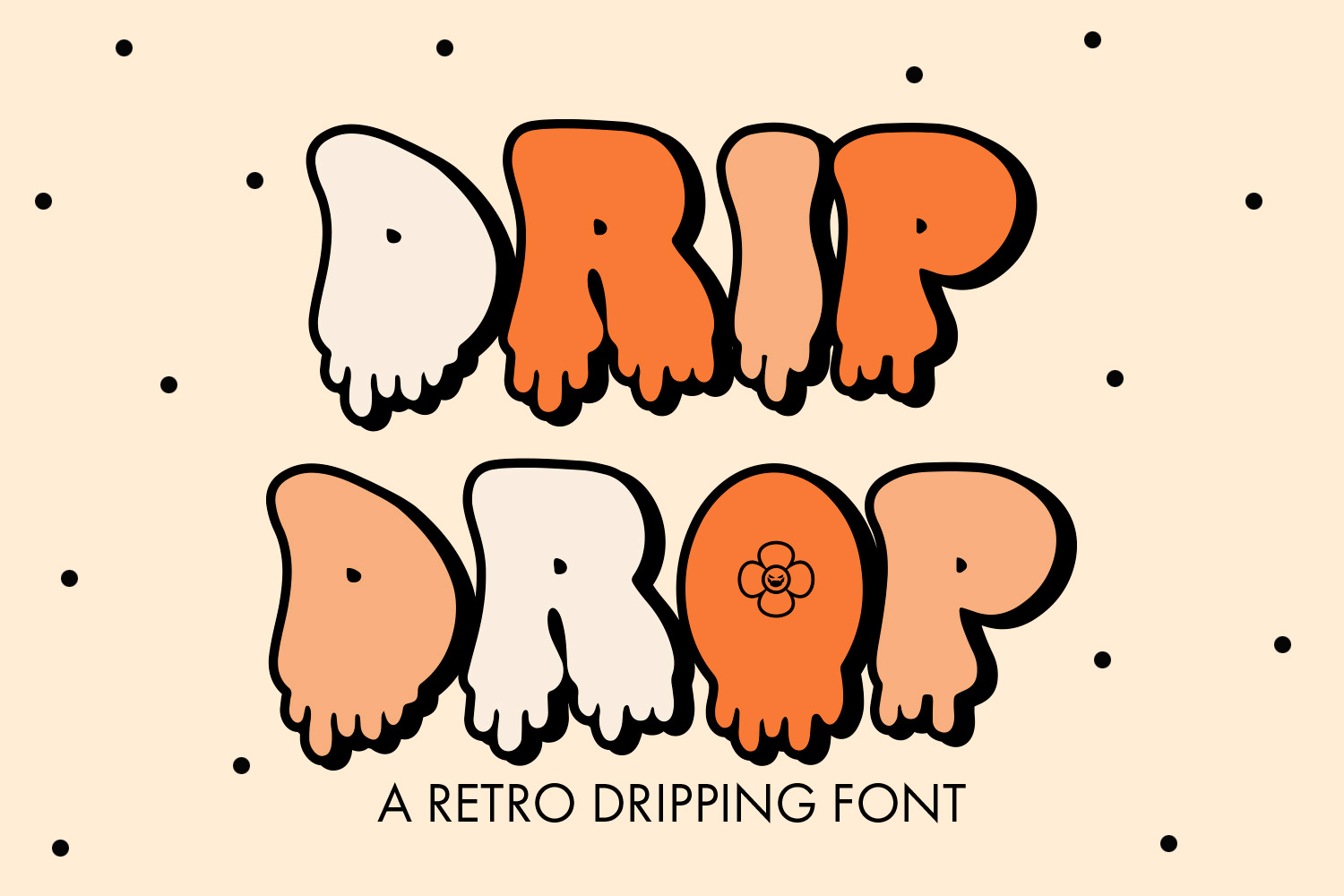
Drip Drop - A Retro Dripping Font
Introducing 'Drip Drop' - A Retro Dripping Font exuding Vintage Vibes! Enhance your designs with a touch of nostalgia. Ideal for posters, logos, and more. #RetroFont #DrippingTypography #DesignInspo
- Drip Drop - Comes with Uppercase A-Z and lowercase a-z letters, 0-9 numbers, stylistic alternates, limited punctuation and supports Western European Languages